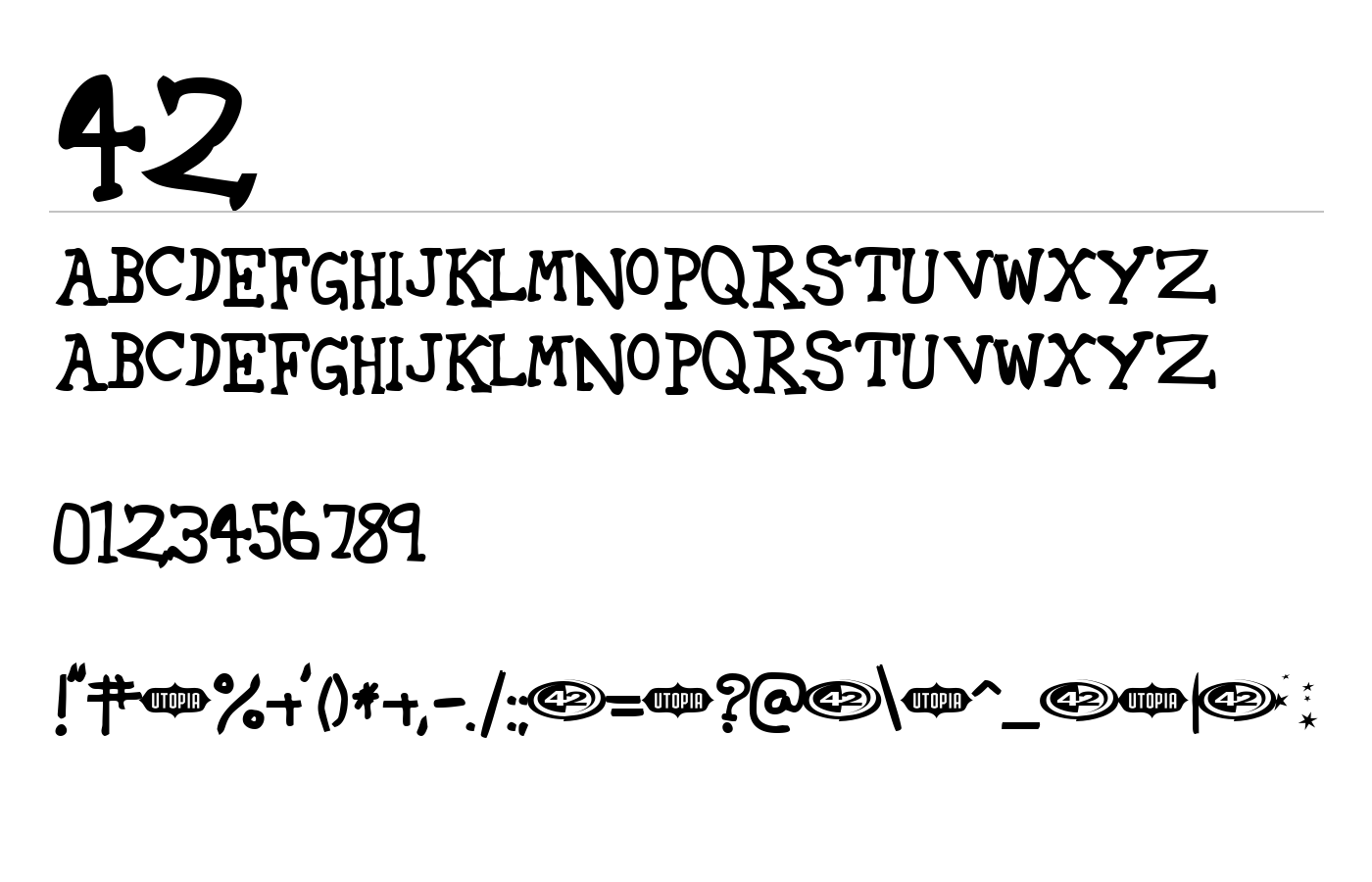
42 Font is a quirky, hand-drawn serif typeface with playful irregularities and a distinct vintage feel. Its uneven strokes and unique character shapes give it a casual, whimsical personality that works well for creative projects, posters, and branding that aims for an informal, artistic vibe. This font is ideal for adding charm and character where a sense of individuality and fun is desired.